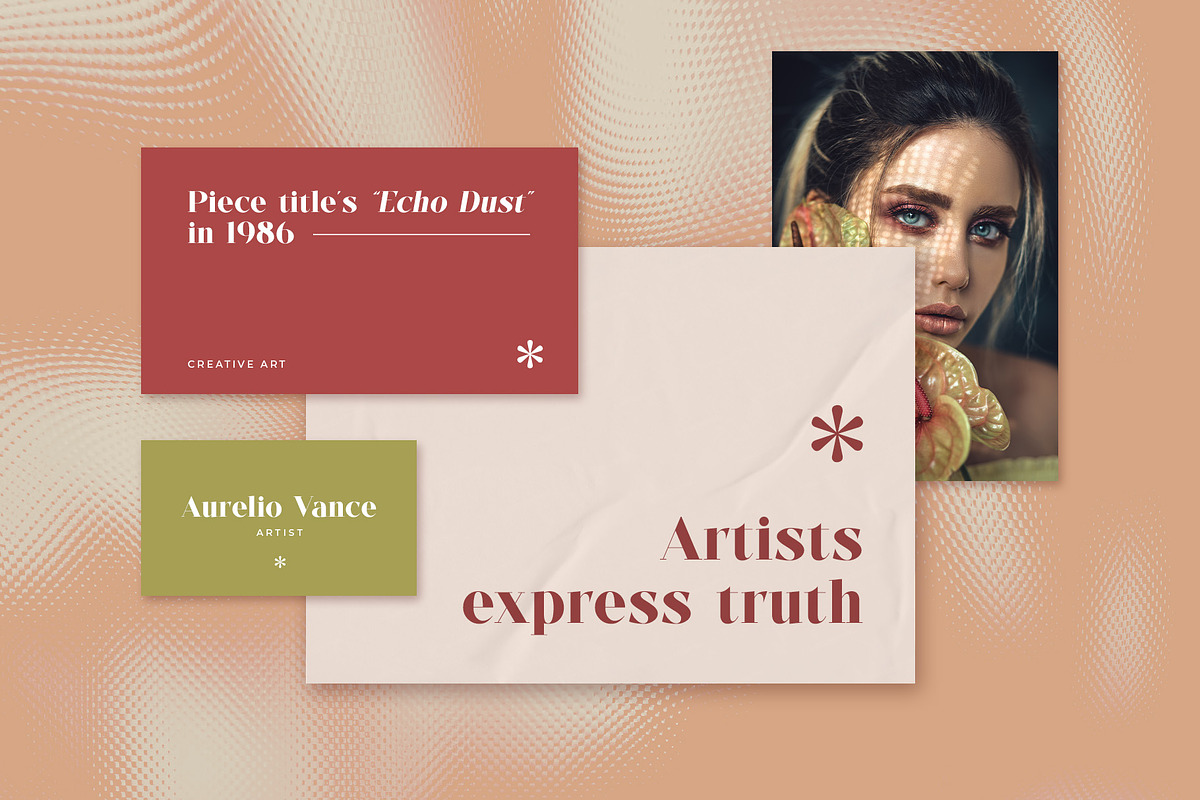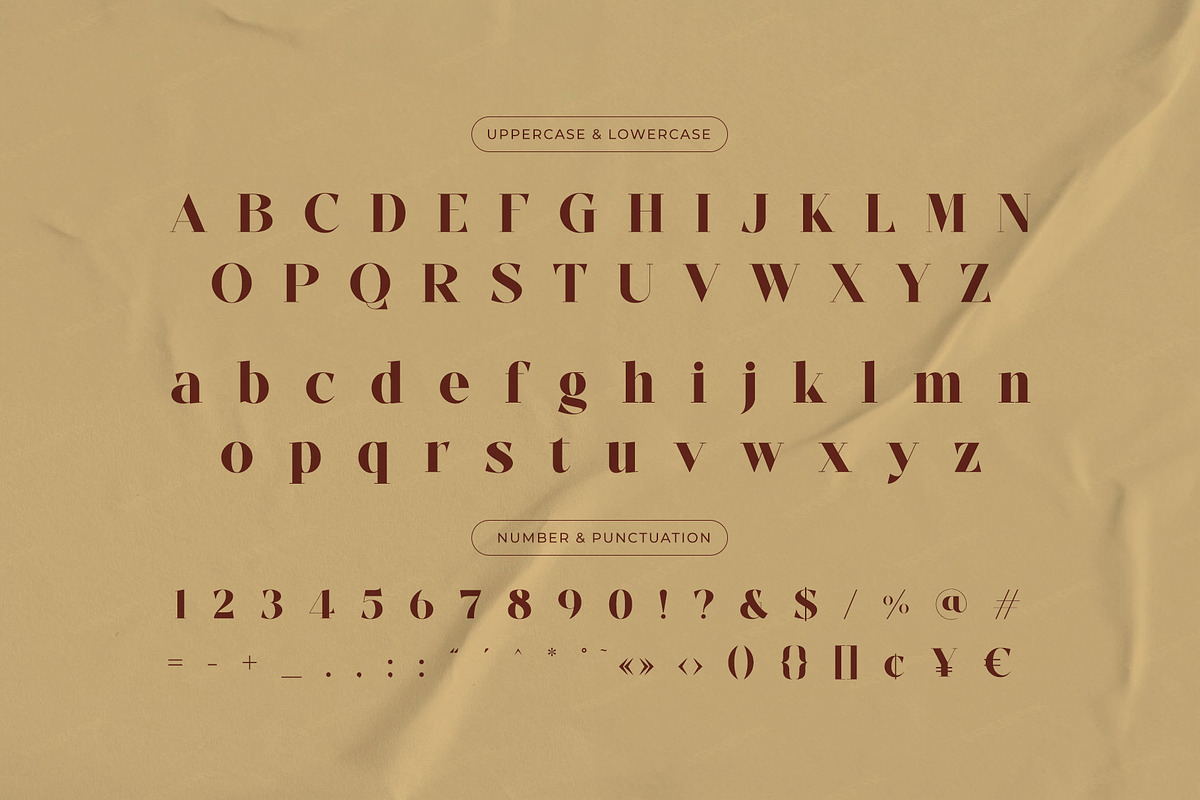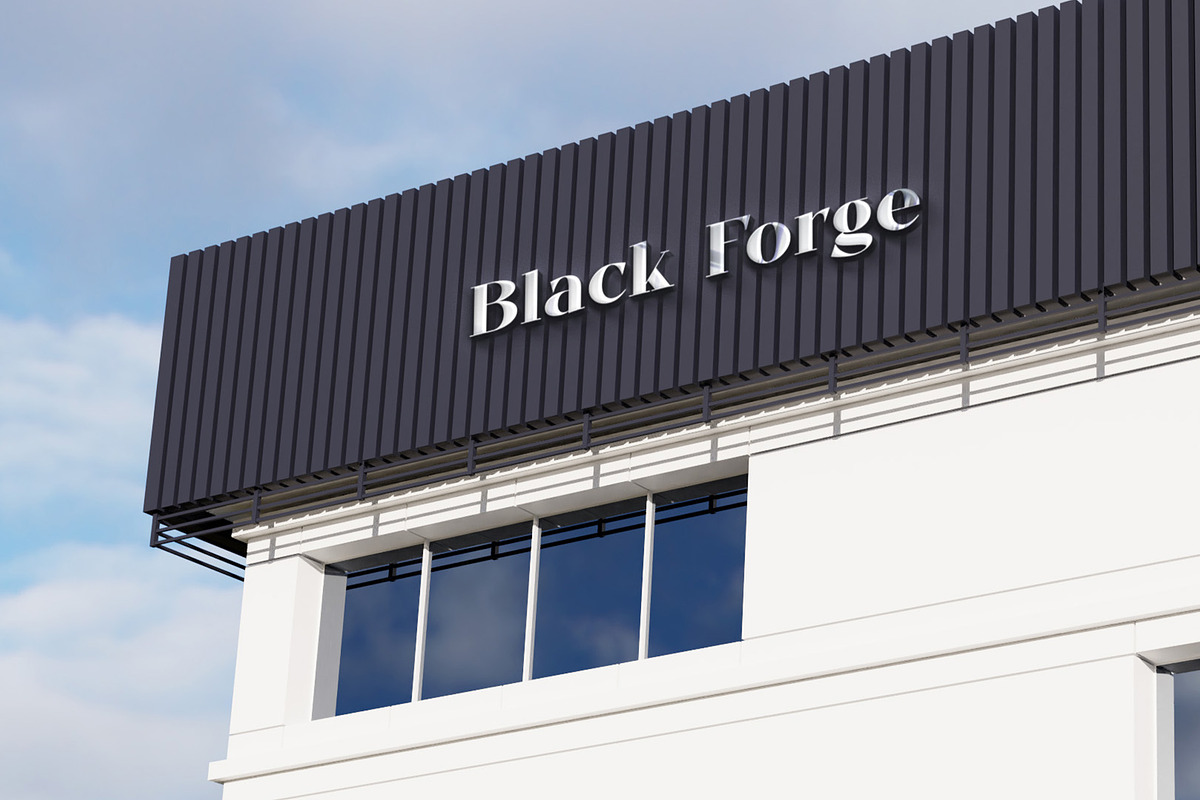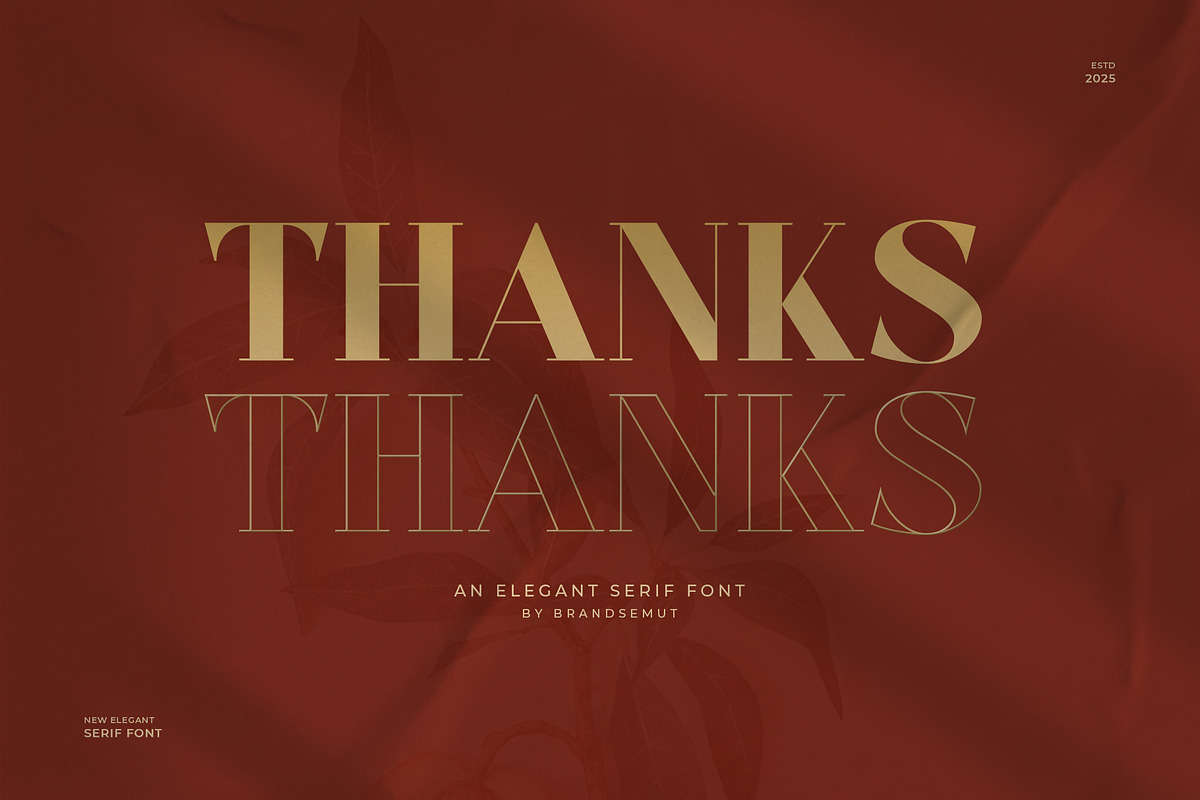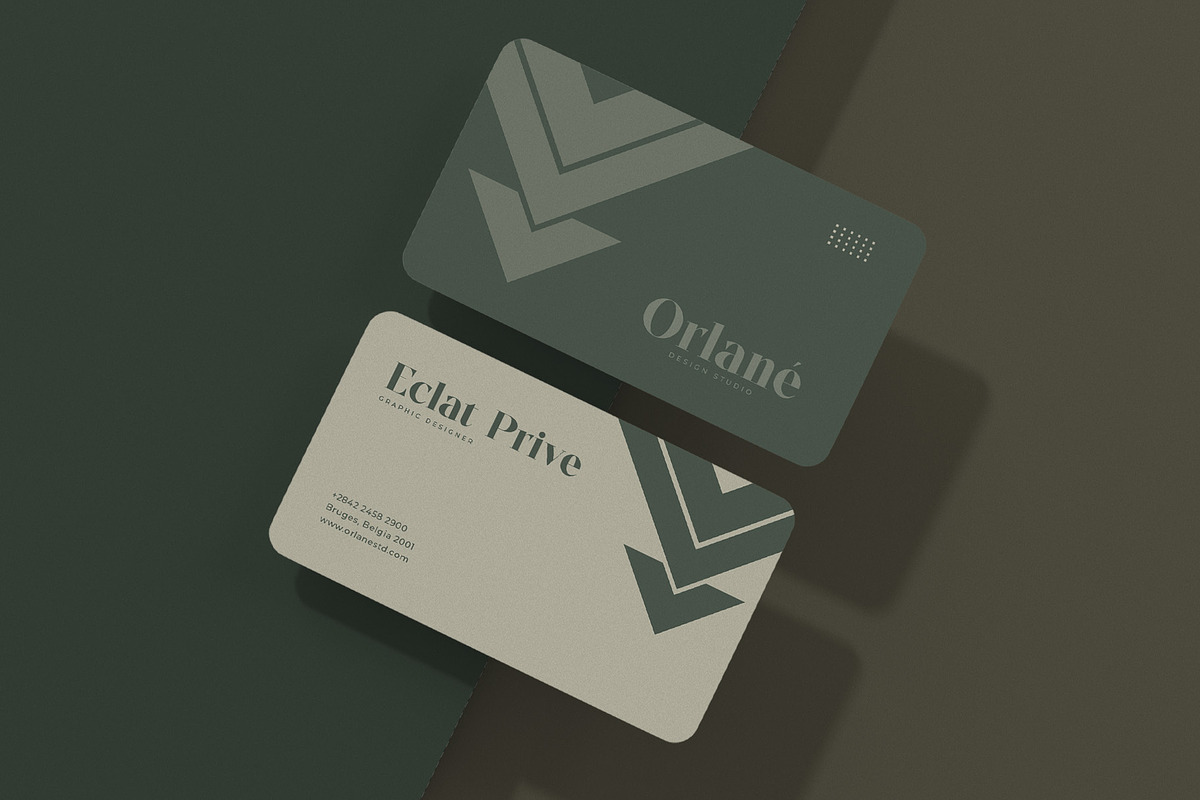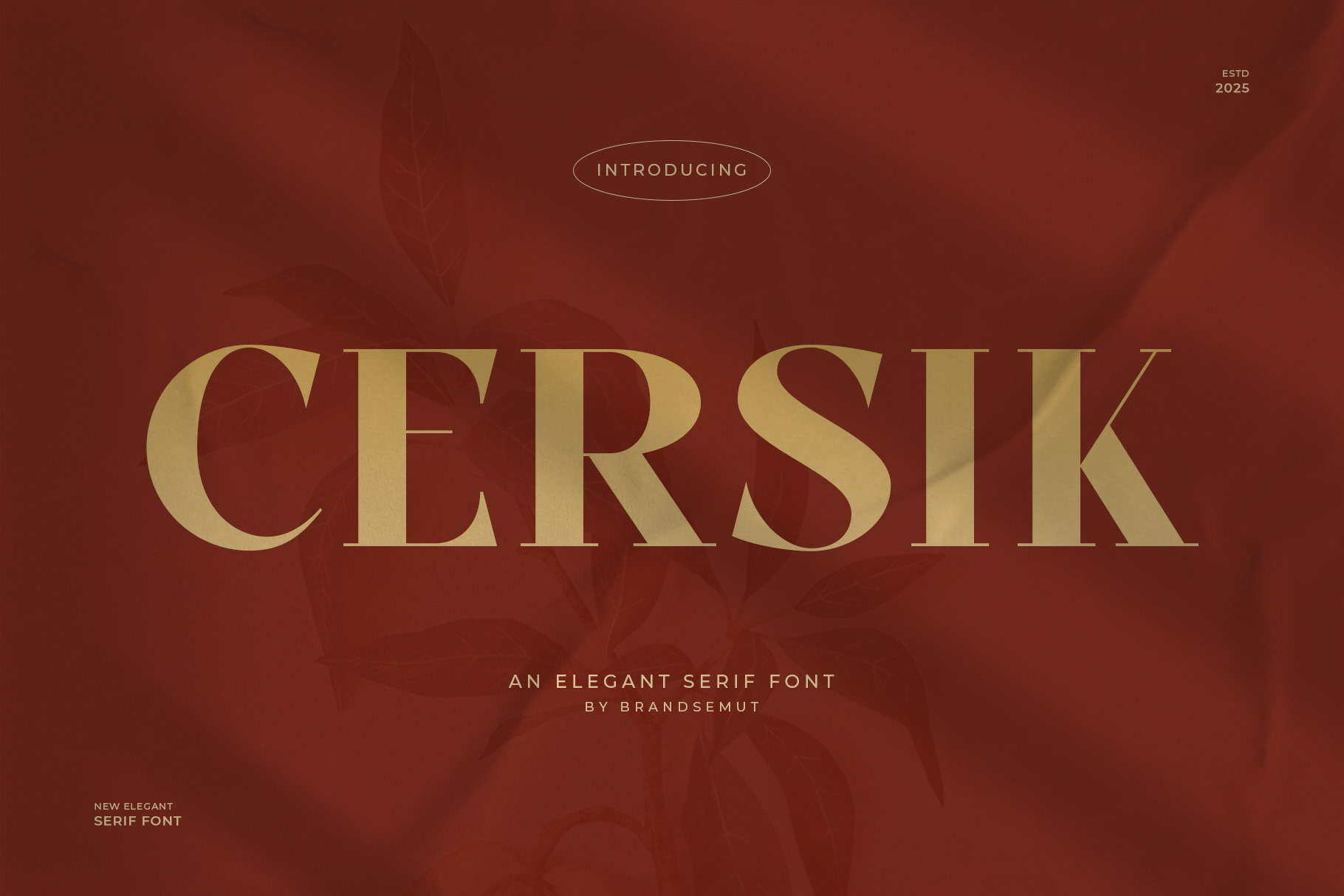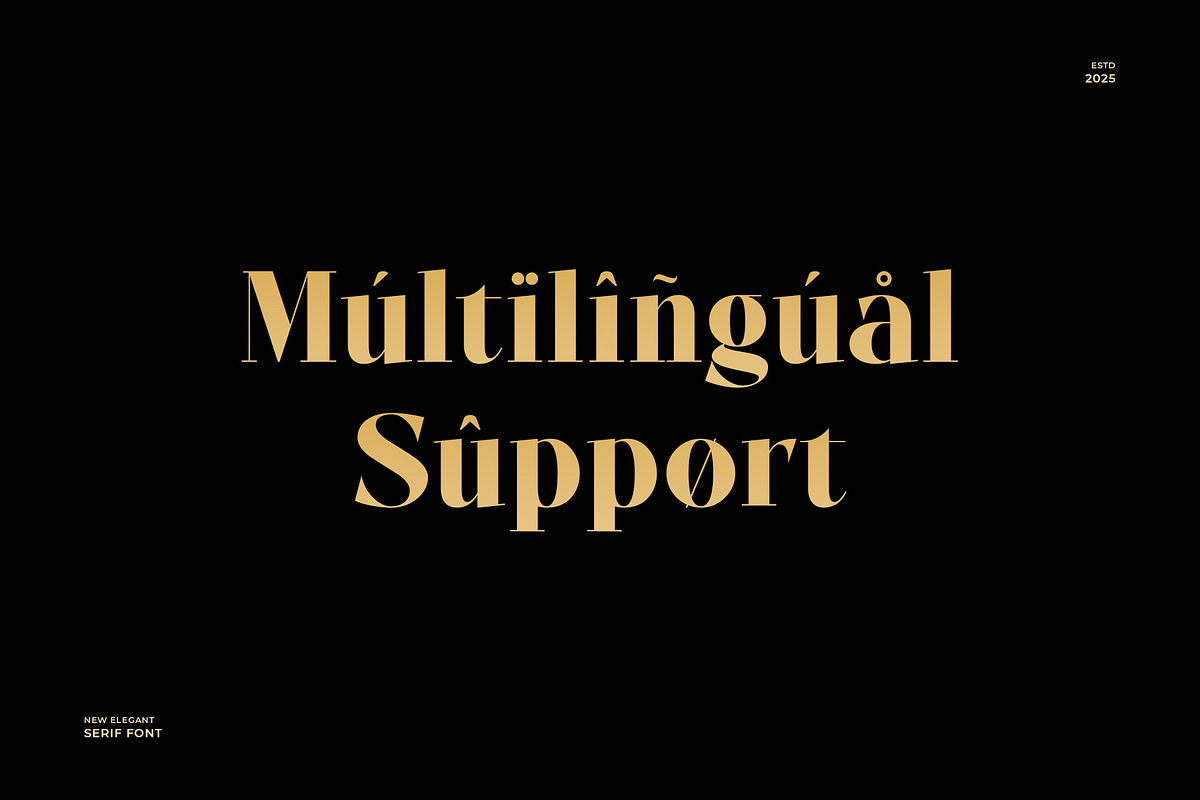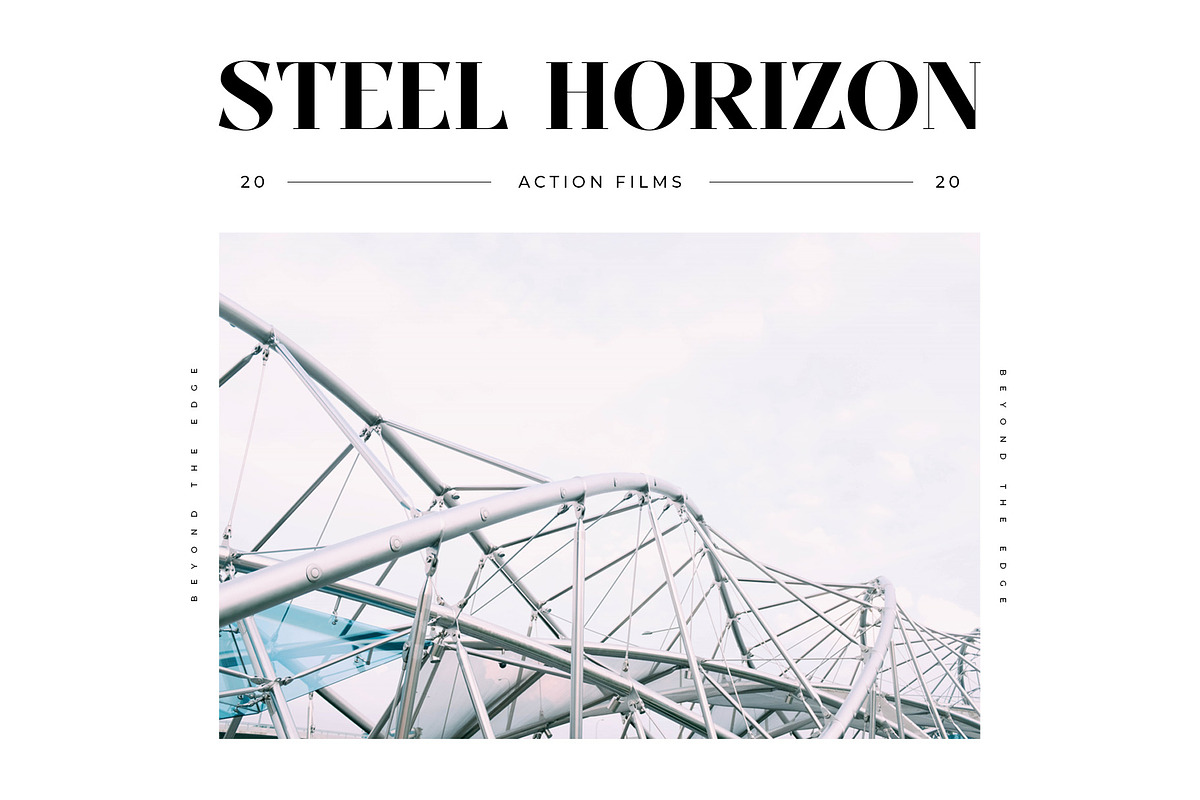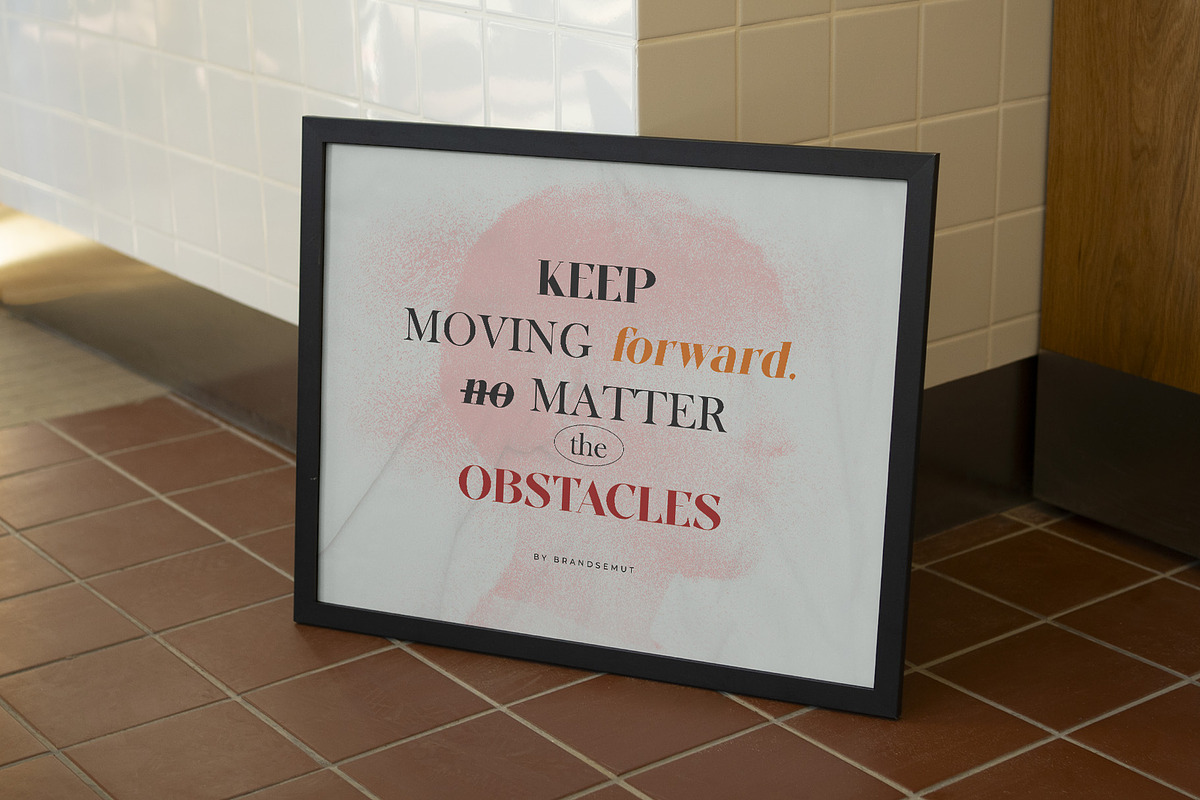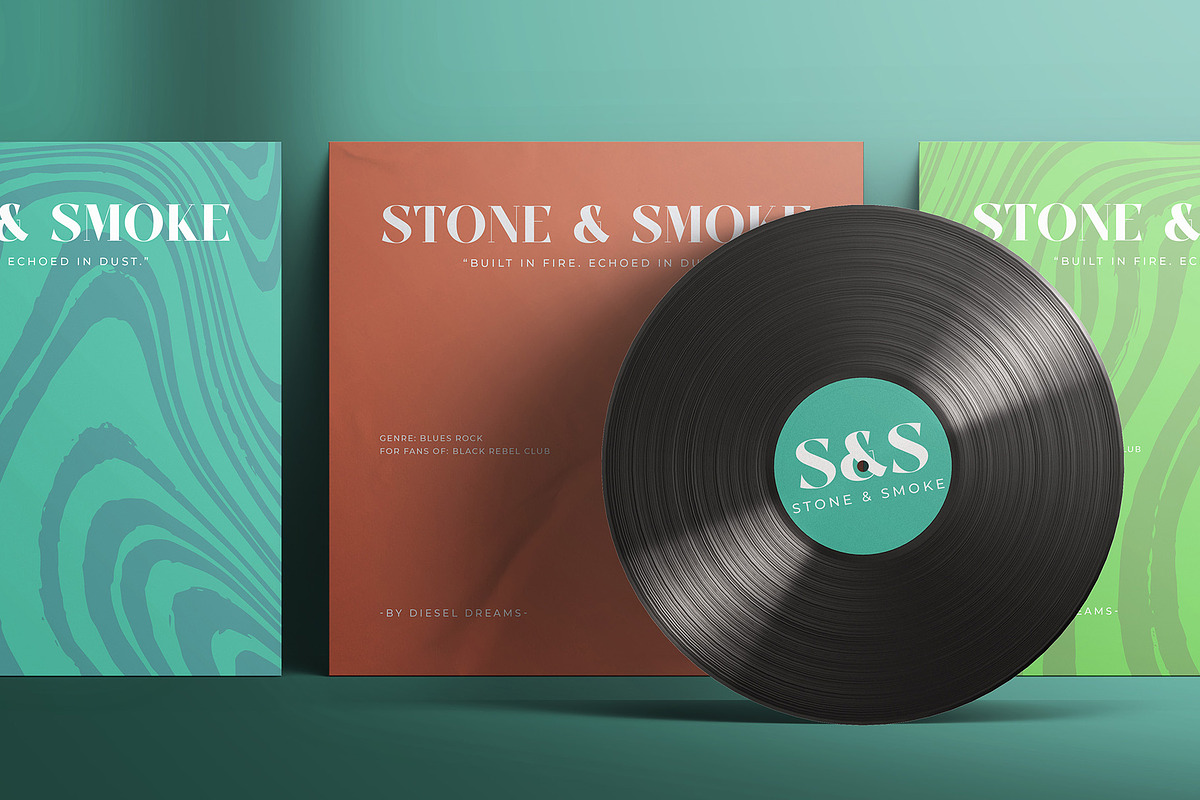
Cersik – Elegant Modern Serif Font
Cersik – Elegant Modern Serif Font with Uppercase & Lowercase for Luxury Branding & Editorial Design
Cersik is an elegant and modern serif font crafted for designers who demand sophistication and clarity. Featuring well-balanced uppercase and lowercase letters, this typeface offers timeless beauty with a modern edge — ideal for luxury branding, magazine headlines, premium packaging, wedding invitations, and fashion-related visuals.
Every stroke is carefully shaped to deliver authority, elegance, and visual harmony — making Cersik a powerful yet refined choice for high-end creative projects.
- Luxury logo design & brand identity
- Editorial layouts & magazine titles
- Classy wedding stationery
- Fashion & cosmetic packaging
- Minimalist web design & quotes
- Uppercase & lowercase alphabets
- High contrast elegant serif structure
- Beautiful curves with sharp terminals
- Optimized for both print and digital use
Let Cersik elevate your design language with a typographic style that exudes elegance, strength, and timeless appeal.